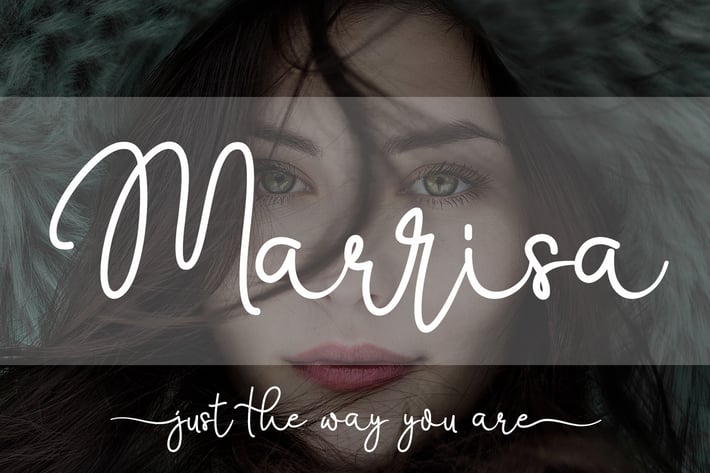
Marrisa - Beautiful Script Font
Marrisa Script
Just imagine that your customers are women. They love to see something beautiful, elegant, and warm, right? You don’t need to get confused to find an interesting font to attract their attention. I have a special font namely "Marrisa". The font design looks simple without losing its elegance and warmness. The function of the font is to show that you have a modern spirit to serve high-quality products and services. I design this font with OpenType features to give an artistic touch on it. This font is also applicable for numbers, punctuation, and other languages. It is also a multifunction font where you can use for a business logo, branding, wedding invitation, and anything you want.
Stylish handwritten style
Special Ligatures
Special Swash (Beginning Tails)
Special Titling (Ending Tails)